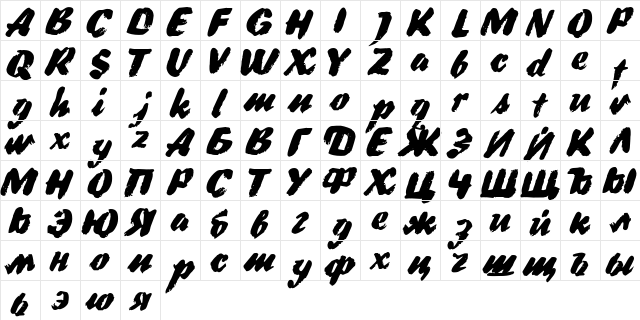
DS BroadBrush Regular
Design Context for DS BroadBrush Typeface
DS BroadBrush brings a calligraphic fluidity to the page — its connecting strokes and expressive curves give it an unmistakably human quality.
Font Pairing: Combine DS BroadBrush with a simple geometric sans for maximum contrast — the tension between flowing curves and clean structure is a classic typographic pairing.
Pro Tip: Use DS BroadBrush for short runs of text — names, titles, or taglines. Extended body copy in script faces tires the eye quickly.